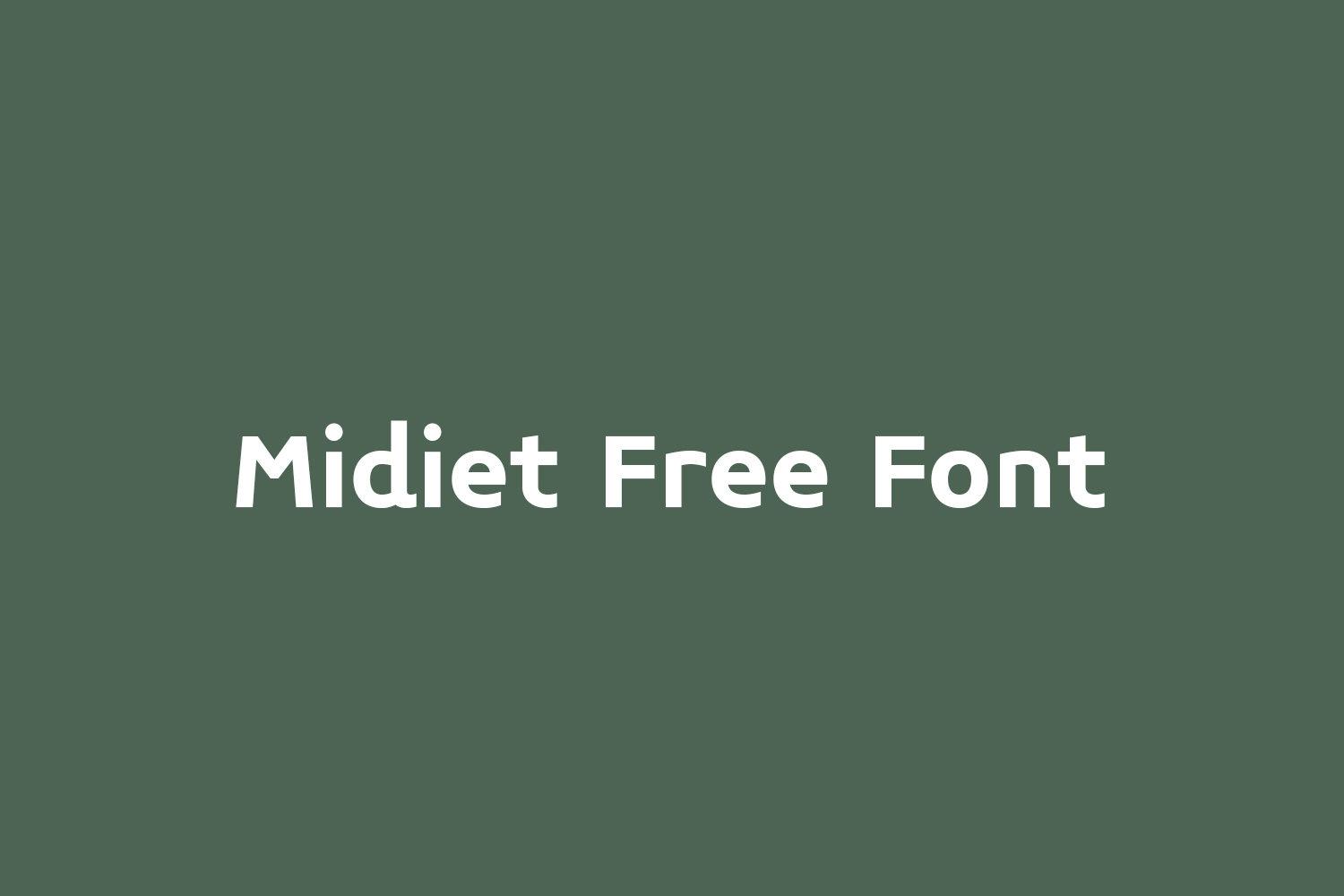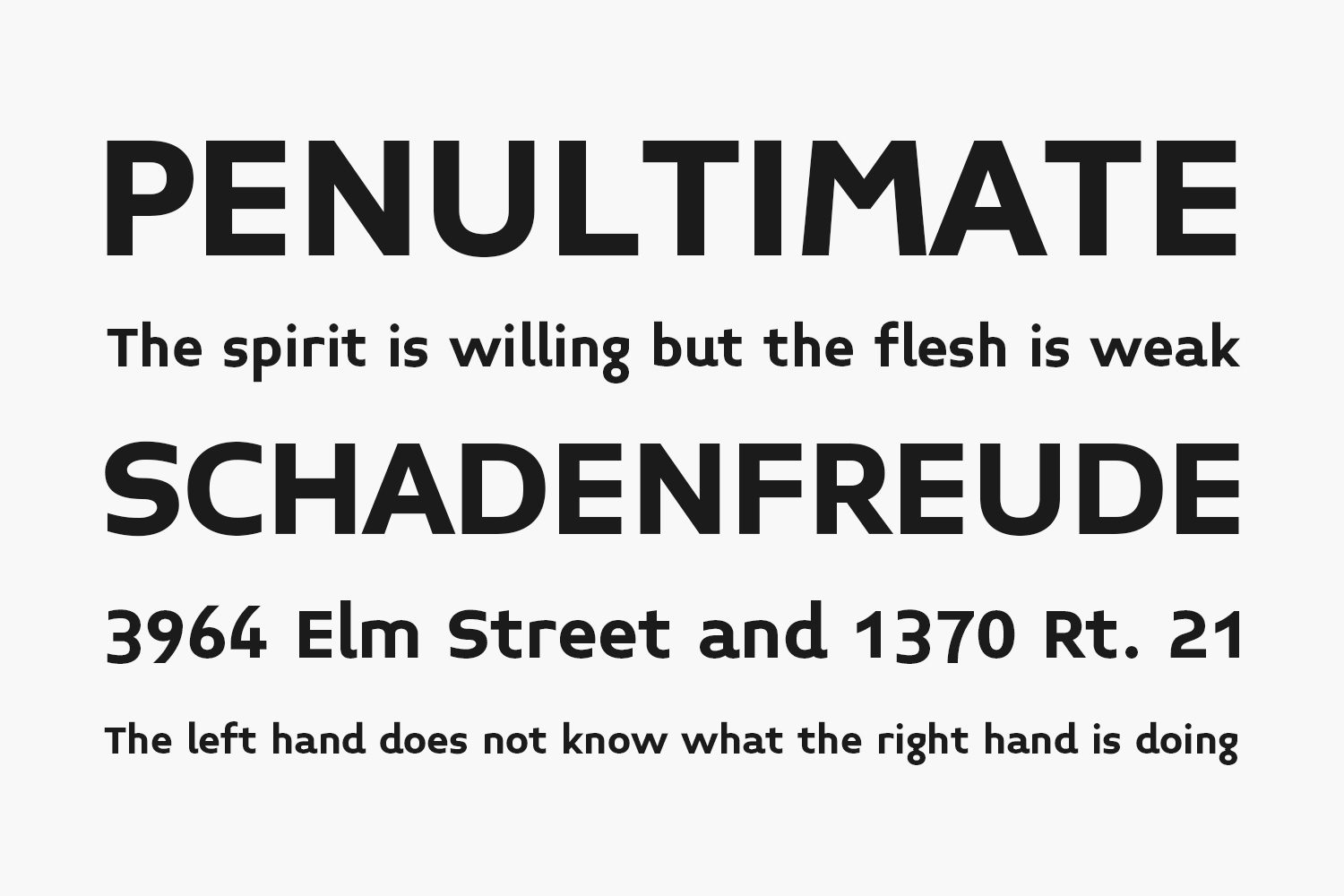
The letterset from the design scratches for Midiety in 1990 was modified their proportions of capitals, lower cases and numerics after the long intermittent lettershape studies, then finally has been given a name Midiet with only bold complements on 4th January/2009. In the same January, two weights had been added.
Midiety Free Font Family was the source typeface for my Engraver Sans and Pica, here the trio has been made with the new comer Midiet.